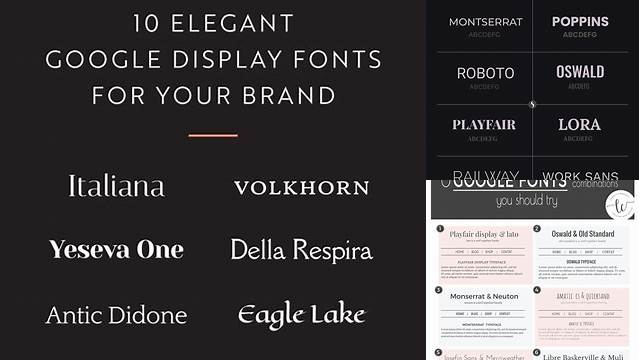
Elegant Google Fonts For Logos: Design Guide
Choosing the right font is crucial when crafting a logo that embodies elegance and sophistication. With a vast library of options, Google Fonts offers a treasure trove of elegant typefaces perfect for creating memorable and impactful logos. Let's explore some of the most stylish and refined Google Fonts that can elevate your logo design.
H2: Understanding the Importance of Font Choice in Logo Design
Font choice plays a pivotal role in shaping brand perception and conveying the desired message. When it comes to logo design, selecting the right font can make or break the overall impact. An elegant font can communicate sophistication, refinement, and attention to detail. Consider the brand's personality and target audience when choosing a font; does it align with the brand's values and resonate with its ideal customer? A well-chosen font will not only enhance the visual appeal of the logo but also reinforce the brand's identity. Factors such as readability, scalability, and versatility should also be taken into account to ensure the logo remains effective across various platforms and applications. Ultimately, the font should be legible and visually appealing, even at small sizes, and should work well in both print and digital formats. Experiment with different font pairings and variations to achieve a harmonious and balanced design that captures the essence of the brand. Think of fonts as the voice of your brand; make sure it speaks volumes.
H2: Serif Fonts for a Classic and Elegant Logo
Serif fonts, with their classic and distinguished appearance, are a go-to choice for logos seeking an air of elegance and tradition. These fonts feature small decorative strokes, known as serifs, at the end of each character, adding a touch of sophistication and formality. Some of the most elegant serif fonts available on Google Fonts include Playfair Display, a high-contrast font with delicate serifs, perfect for luxury brands; Lora, a well-balanced and readable font with a contemporary feel; and DM Serif Display, a versatile font with a timeless appeal. Consider the brand's heritage and values when selecting a serif font; does it evoke a sense of history, trust, and authority? Serif fonts are often used in industries such as fashion, beauty, and finance, where a sense of refinement and credibility is essential. Experiment with different weights and styles to create a unique and memorable logo that stands the test of time. Pay attention to the spacing between letters and words to ensure readability and visual harmony. Ultimately, the goal is to create a logo that exudes elegance and sophistication, leaving a lasting impression on the audience. Keep in mind that a well-chosen serif font can elevate your brand identity and set you apart from the competition.
H2: Sans-Serif Fonts for a Modern and Minimalist Logo
Sans-serif fonts, characterized by their clean and simple lines, offer a modern and minimalist aesthetic that is perfect for logos seeking a contemporary edge. These fonts lack the decorative serifs found in traditional serif fonts, resulting in a cleaner and more streamlined appearance. Popular elegant sans-serif fonts on Google Fonts include Montserrat, a versatile font with a geometric design; Raleway, a sleek and sophisticated font with a modern flair; and Lato, a highly readable font with a warm and friendly feel. Think about the brand's personality and target audience when choosing a sans-serif font; does it convey a sense of innovation, simplicity, and modernity? Sans-serif fonts are often used in industries such as technology, design, and startups, where a cutting-edge and forward-thinking image is essential. Experiment with different weights and styles to create a unique and memorable logo that reflects the brand's identity. Pay attention to the kerning and tracking to ensure optimal readability and visual balance. Ultimately, the goal is to create a logo that is both visually appealing and functional, conveying the brand's message in a clear and concise manner. Keep in mind that a well-chosen sans-serif font can enhance brand recognition and create a lasting impression on the audience.
H2: Script Fonts for a Personal and Elegant Logo
Script fonts, inspired by handwriting, add a personal and elegant touch to logos, creating a sense of intimacy and sophistication. These fonts feature flowing lines and decorative flourishes, mimicking the look of calligraphy or cursive writing. Some of the most elegant script fonts available on Google Fonts include Great Vibes, a classic and romantic font with beautiful swashes; Pacifico, a playful and casual font with a retro vibe; and Lobster, a bold and eye-catching font with a vintage feel. Consider the brand's story and values when selecting a script font; does it evoke a sense of romance, creativity, or nostalgia? Script fonts are often used in industries such as wedding planning, handmade goods, and artisanal products, where a personal and heartfelt connection is essential. Experiment with different styles and variations to create a unique and memorable logo that reflects the brand's personality. Be mindful of readability, as some script fonts can be difficult to read at small sizes. Ultimately, the goal is to create a logo that is both visually appealing and legible, conveying the brand's message in a warm and inviting manner. A well-chosen script font can add a touch of elegance and charm to your brand identity, making it stand out from the crowd.
H2: Display Fonts for a Unique and Elegant Logo
Display fonts, designed to grab attention and make a statement, are perfect for logos that require a unique and elegant touch. These fonts often feature bold and unconventional designs, making them ideal for creating memorable and impactful logos. Some elegant display fonts on Google Fonts include Oswald, a bold and condensed font with a modern feel; Montserrat Subrayada, a stylish and eye-catching font with a unique underline; and Bebas Neue, a clean and geometric font with a tall and narrow design. Think about the brand's personality and target audience when choosing a display font; does it convey a sense of creativity, innovation, or boldness? Display fonts are often used in industries such as fashion, entertainment, and advertising, where a strong visual impact is essential. Experiment with different sizes and styles to create a logo that stands out from the competition. Be mindful of readability, as some display fonts can be difficult to read at small sizes. Ultimately, the goal is to create a logo that is both visually striking and functional, conveying the brand's message in a memorable and impactful manner. A well-chosen display font can add a touch of personality and uniqueness to your brand identity.
H2: Font Pairing Strategies for Elegant Logos
Choosing the right font pairing is crucial for creating visually appealing and balanced logos. A well-executed font pairing can enhance readability, hierarchy, and overall aesthetic appeal. When pairing fonts for elegant logos, consider contrasting styles and weights to create visual interest. For example, pairing a bold serif font with a clean sans-serif font can create a sophisticated and balanced look. Experiment with different combinations to find the perfect harmony between fonts. Some popular font pairing strategies include using a serif font for headings and a sans-serif font for body text, or vice versa. Alternatively, you can pair two different weights of the same font family to create subtle variations and visual hierarchy. Pay attention to the x-height, letter spacing, and overall proportions of the fonts to ensure they complement each other. Ultimately, the goal is to create a font pairing that enhances the overall design and conveys the brand's message effectively. Guys, don't be afraid to try new things!
H2: Color Considerations for Elegant Logo Fonts
The color of your logo font plays a crucial role in conveying the desired message and creating a lasting impression. When choosing colors for elegant logo fonts, consider the brand's personality, target audience, and industry. Elegant logos often feature sophisticated color palettes, such as muted tones, neutrals, and metallics. Experiment with different color combinations to find the perfect balance and harmony. Some popular color choices for elegant logos include gold, silver, black, white, and shades of gray. Consider the psychological effects of different colors and how they can influence brand perception. For example, gold can convey luxury and sophistication, while silver can represent elegance and modernity. Black and white are classic choices that exude timelessness and sophistication. Pay attention to the contrast between the font color and the background color to ensure readability and visual appeal. Ultimately, the goal is to create a color palette that enhances the overall design and reinforces the brand's identity. Remember, color can speak volumes.
H2: Size and Spacing for Legible Elegant Logos
The size and spacing of your logo font are essential for ensuring legibility and visual appeal. When designing elegant logos, pay attention to the kerning, tracking, and leading of the font. Kerning refers to the spacing between individual letters, while tracking refers to the overall spacing between all letters in a word or phrase. Leading refers to the vertical spacing between lines of text. Adjusting these settings can significantly impact the readability and visual balance of the logo. Ensure that the font size is appropriate for the intended use, whether it's for print or digital media. Test the logo at different sizes to ensure it remains legible and visually appealing. Pay attention to the negative space around the letters and words to create a sense of balance and harmony. Ultimately, the goal is to create a logo that is both visually appealing and easy to read, conveying the brand's message effectively. Proper size and spacing can make all the difference.
H2: Kerning Tips for Elegant Fonts
Kerning, the adjustment of space between individual letters, is crucial for achieving a polished and professional look in elegant logos. Inconsistent kerning can lead to awkward gaps or crowding, making the logo appear unprofessional and difficult to read. Pay close attention to letter pairs that often require kerning adjustments, such as AV, WA, and To. Use kerning tools in your design software to fine-tune the spacing between letters and create a visually balanced and harmonious logo. Experiment with different kerning values to find the optimal spacing for each letter pair. Consider the overall rhythm and flow of the text when making kerning adjustments. Ultimately, the goal is to create a logo that is both visually appealing and easy to read, conveying the brand's message effectively. A well-kerned font can elevate the elegance of your logo.
H2: Final Thoughts on Elegant Google Fonts for Logos
Choosing the right font for your logo is a critical decision that can significantly impact your brand's perception and identity. Elegant Google Fonts offer a wide range of options to create a logo that embodies sophistication, refinement, and timeless appeal. By carefully considering the brand's personality, target audience, and industry, you can select the perfect font that resonates with your audience and conveys the desired message. Experiment with different font pairings, colors, and spacing to achieve a harmonious and balanced design that captures the essence of your brand. Whether you opt for a classic serif font, a modern sans-serif font, or a unique script font, remember to prioritize readability, scalability, and visual appeal. With the right font choice, your logo will not only look elegant but also effectively communicate your brand's values and create a lasting impression. So, take your time, explore the vast library of Google Fonts, and discover the perfect typeface that elevates your brand to new heights of elegance and sophistication. Happy designing, guys!